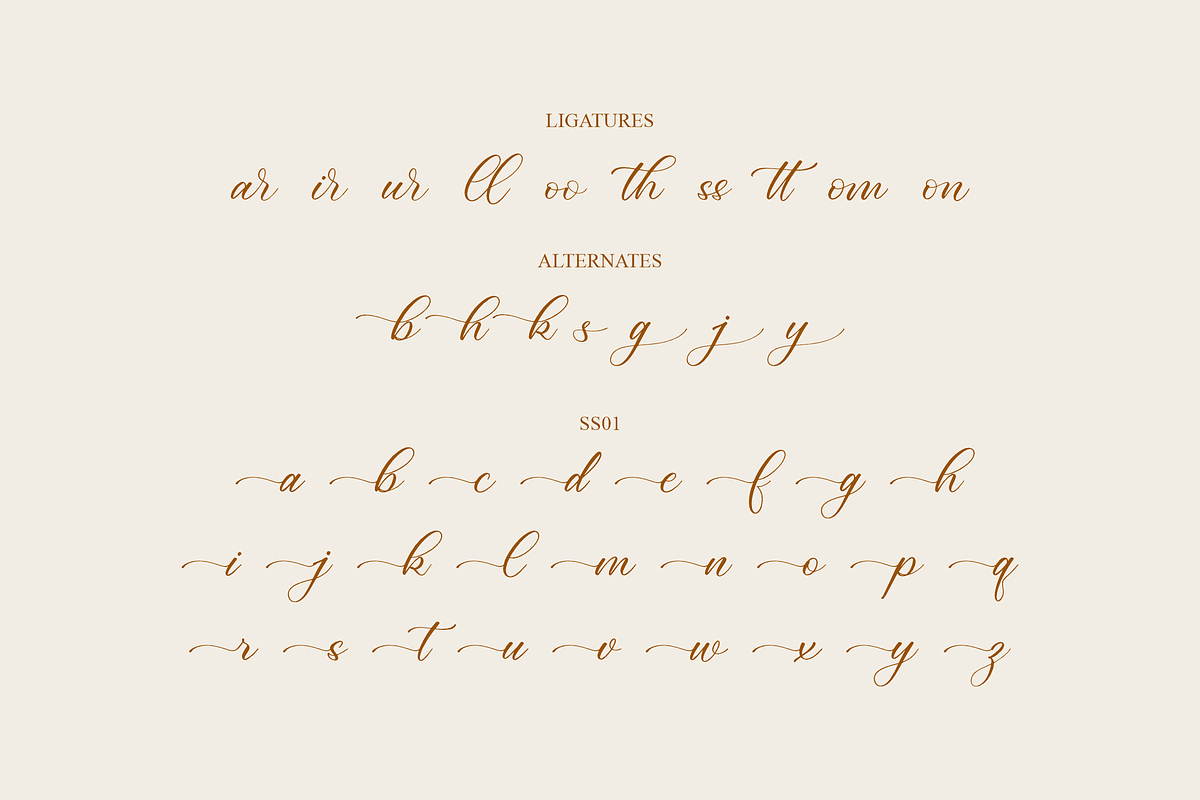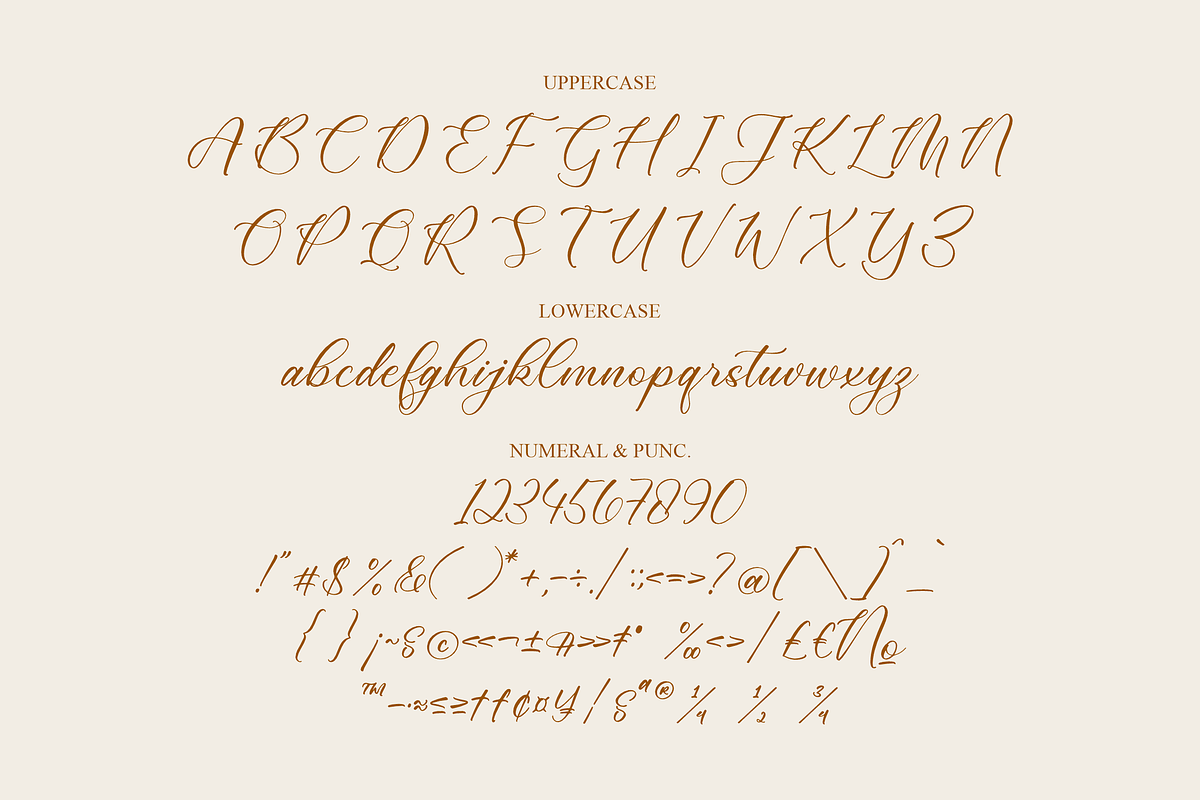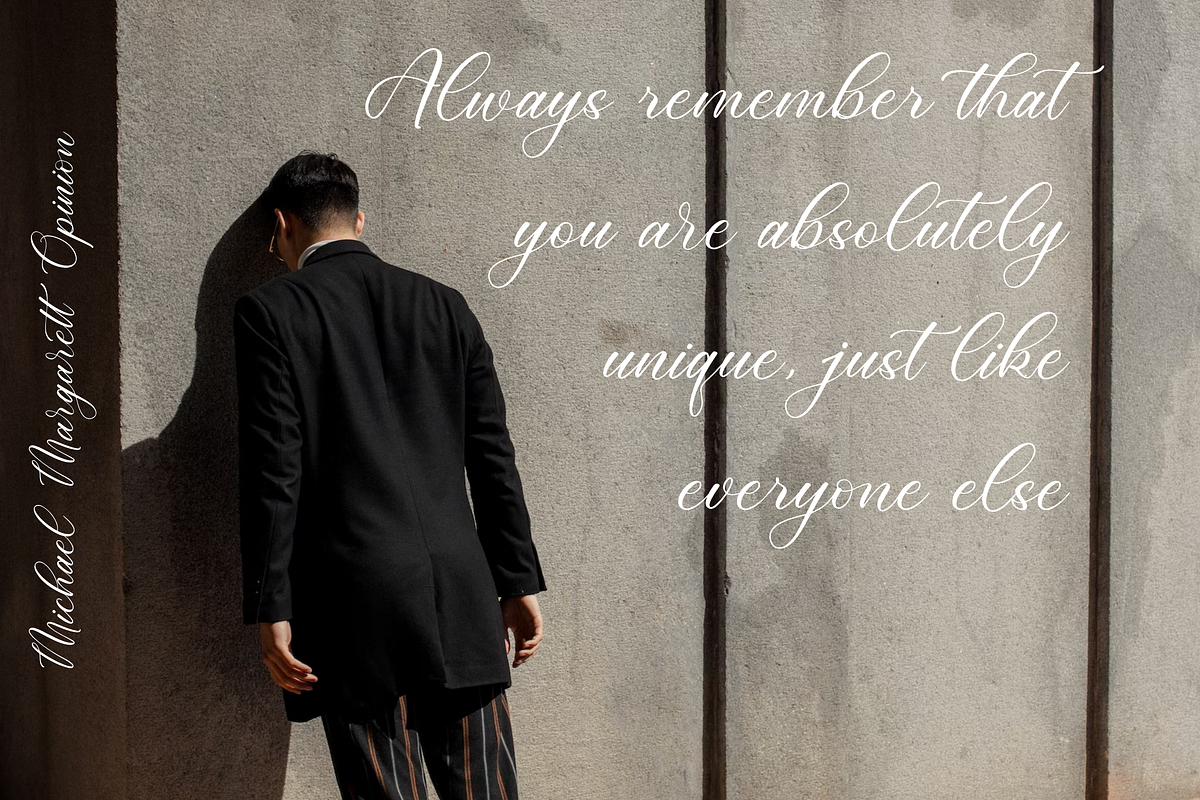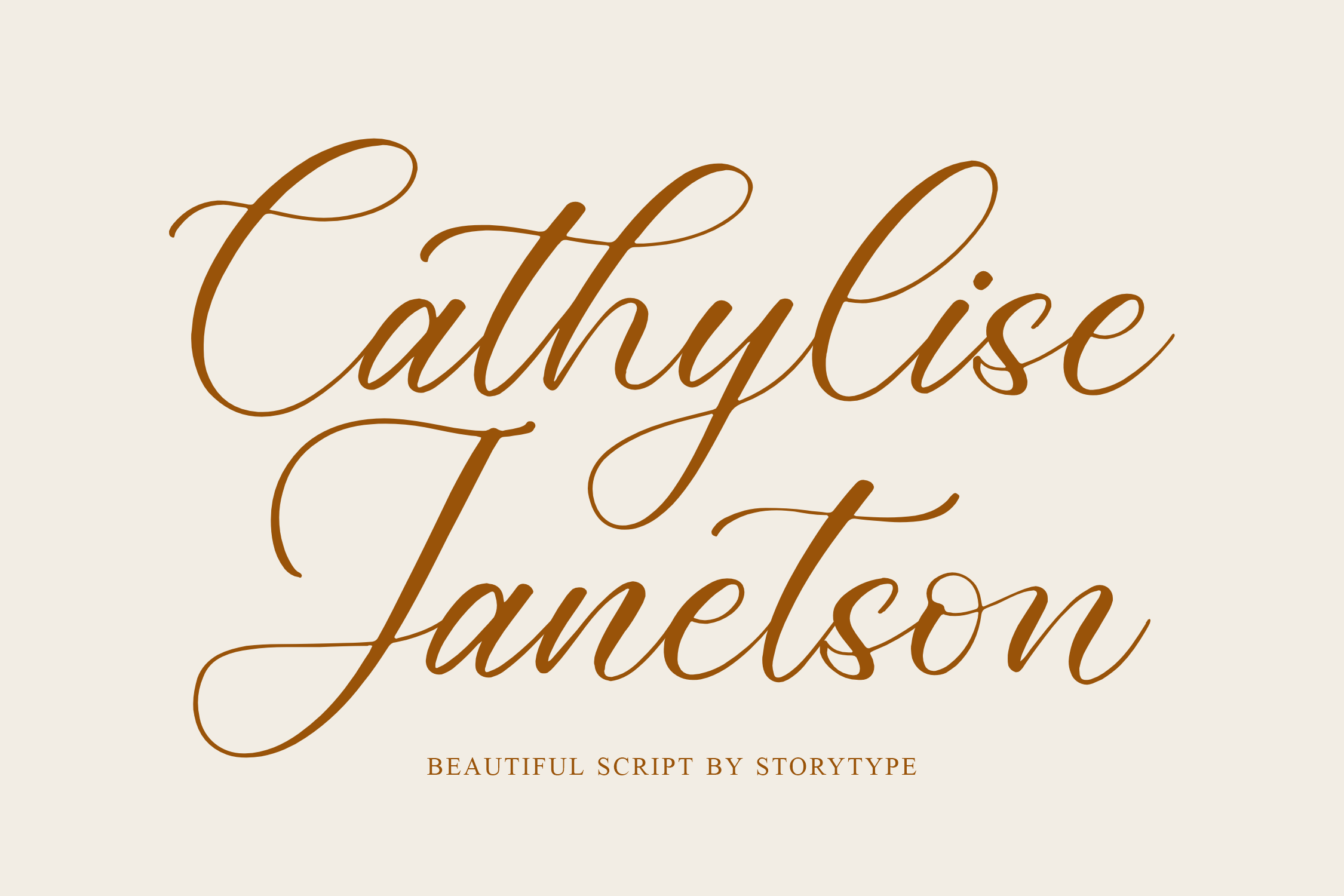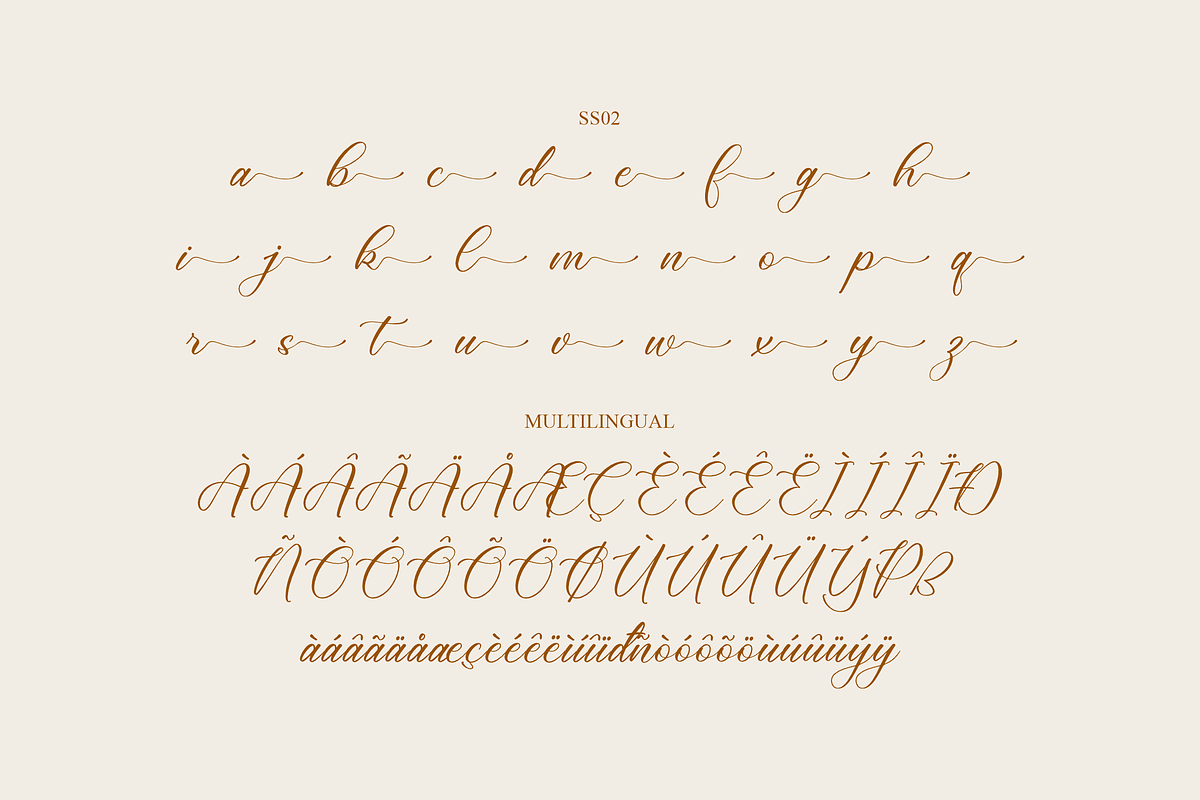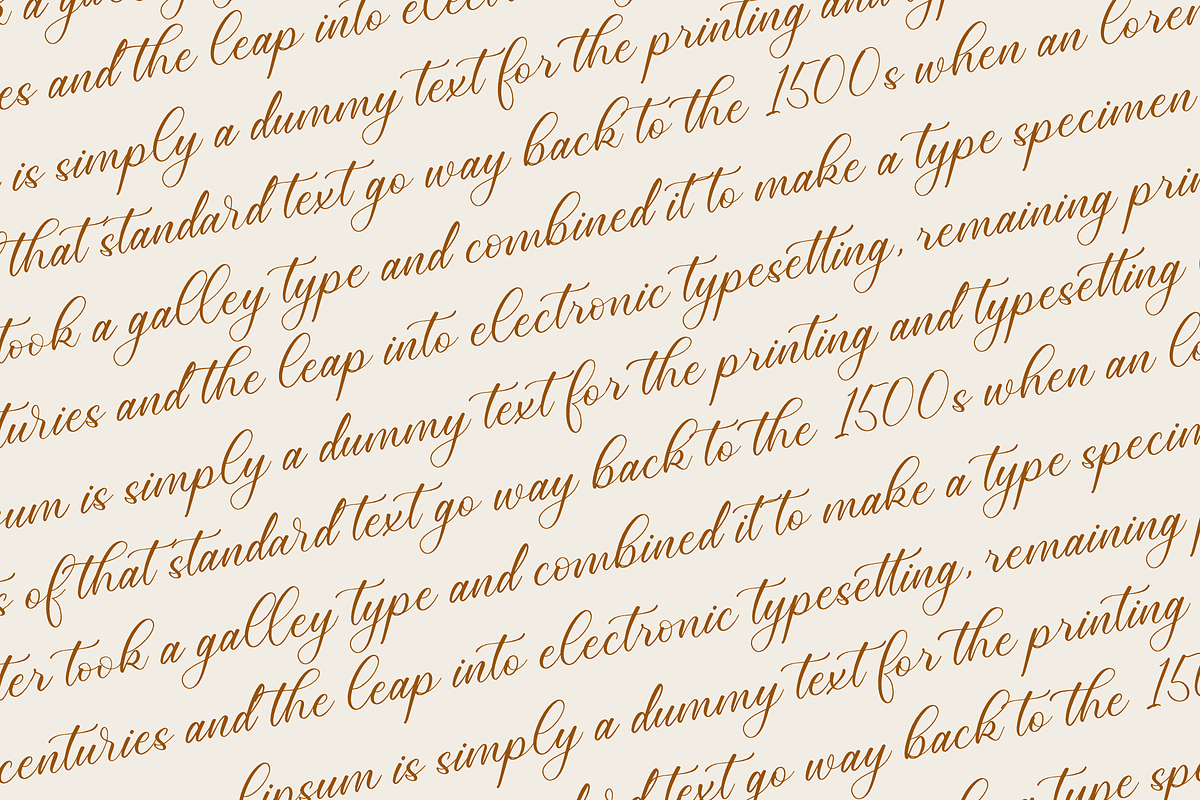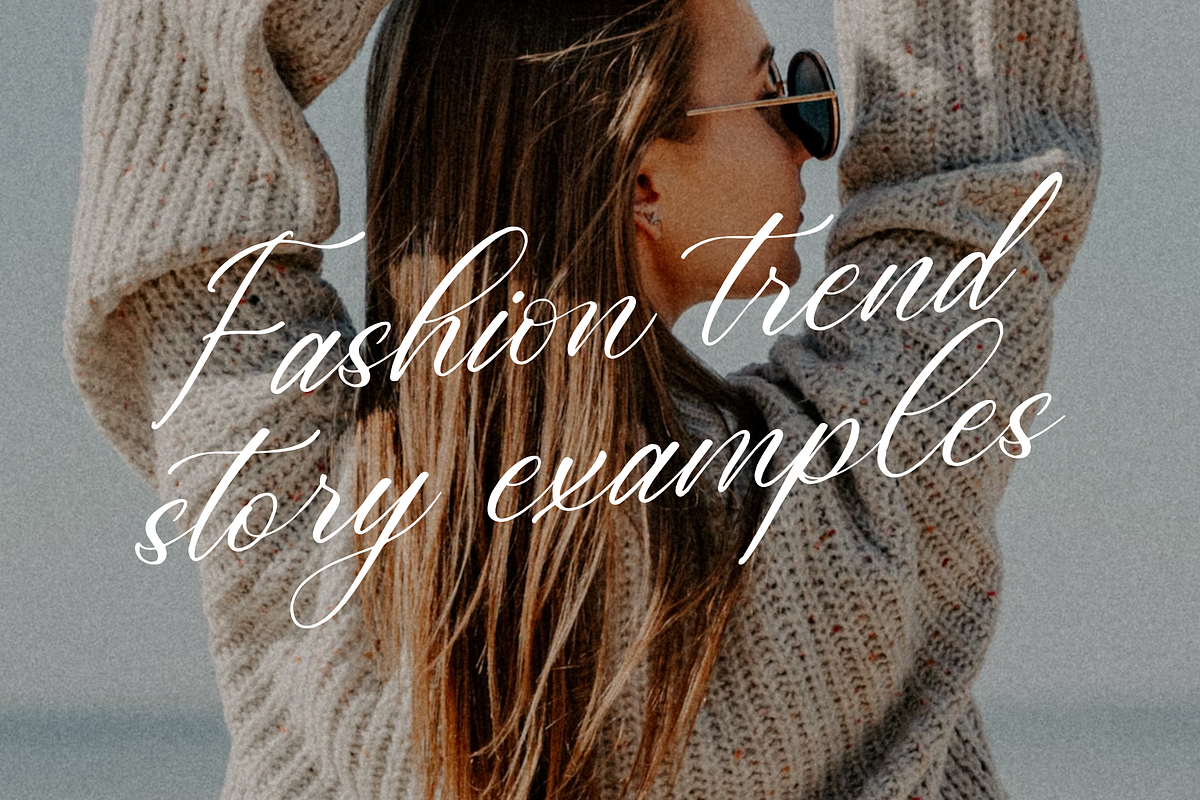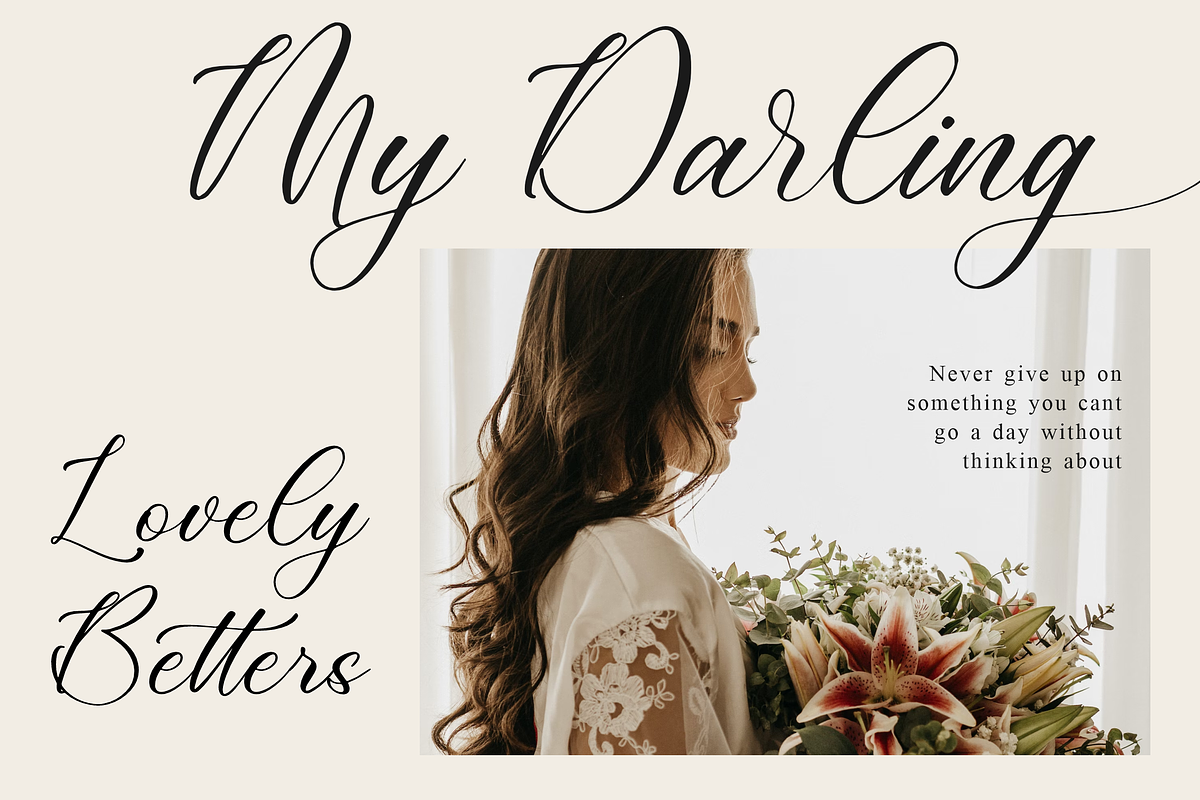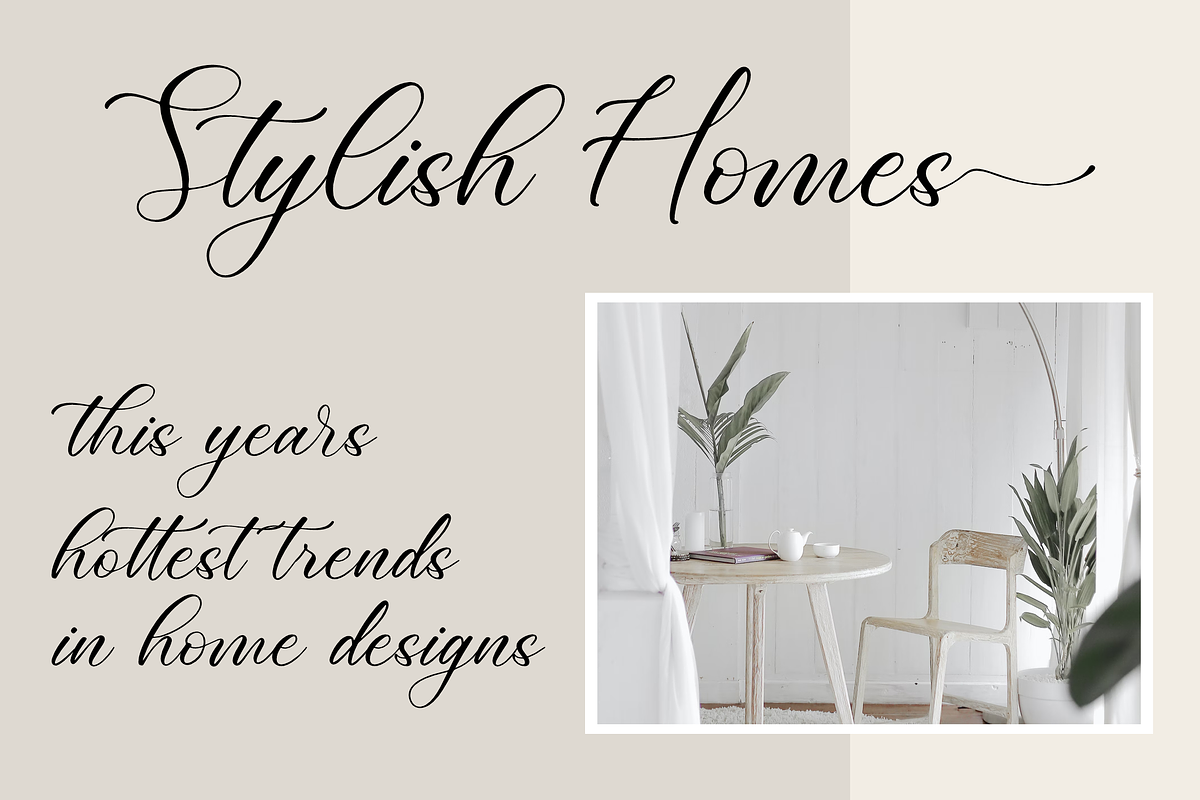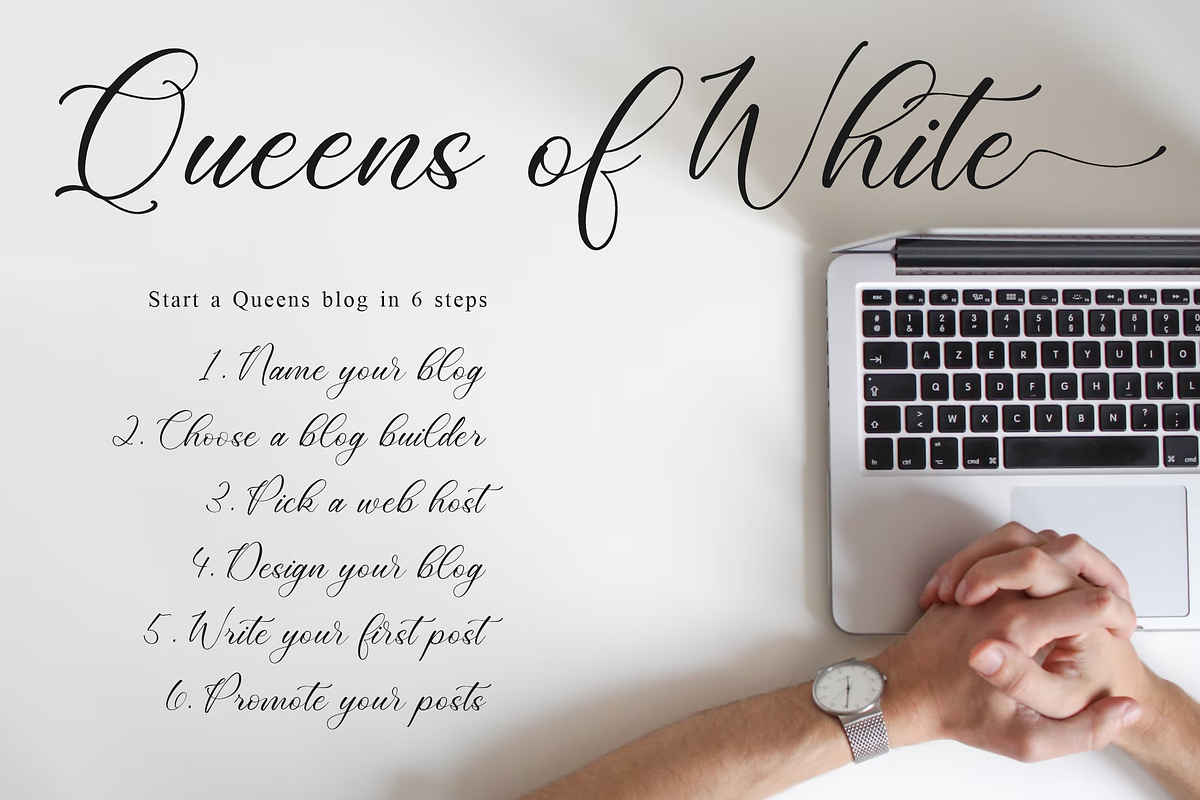
Cathylise Janetson Script Font
Proudly present Cathylise Janetson Script Font , created by Storytype, A Beautiful script that has own unique style & modern look. This typeface is perfect for an elegant & luxury logo, book or movie title design, fashion brand, magazine, clothes, lettering, quotes, and so much more.